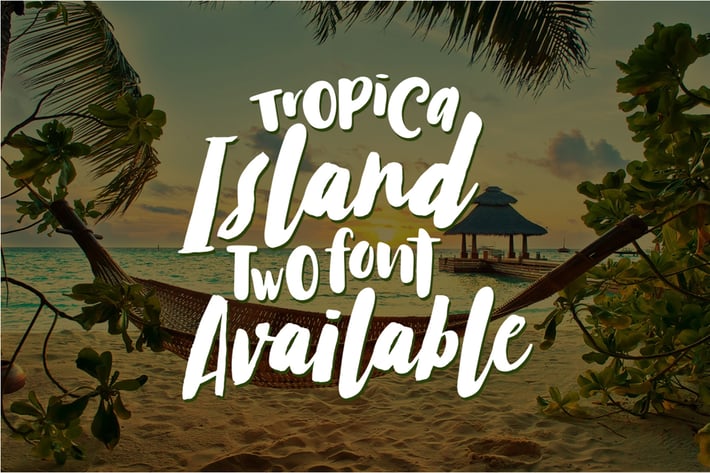
Tropical Island Font Duo
Tropical Island perfect for greeting cards, magazine, branding, social media, print, packaging, and many more.
- Tropical Island Sans
- Tropical Island Script